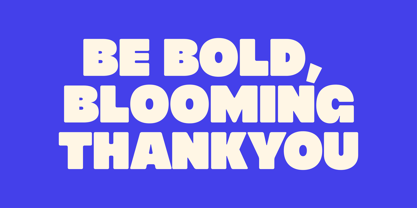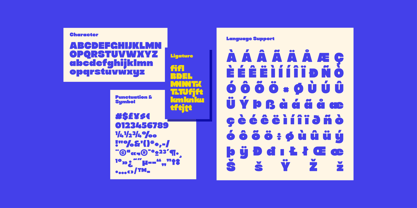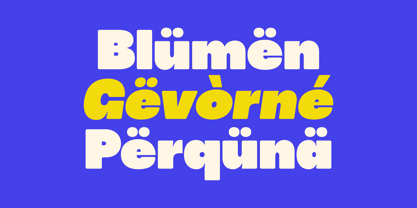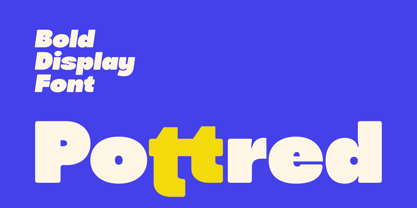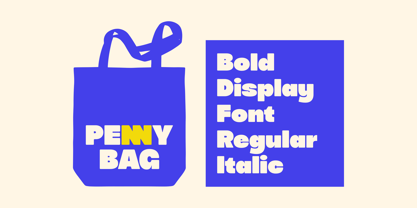
Pottred
by Glyphminds Studios
The Pottred Font Family was designed by Baliya Ibnu Bi Malkan and published by Glyphminds Studios. Pottred contains 2 styles and family package options. More about this family
Meet Pottred, a bold and playful display font crafted to bring energy and personality to your designs. With its rounded shapes, strong curves, and modern retro vibe, Pottred is perfect for eye-catching headlines, logo designs, posters, branding projects, and packaging. Whether you’re a designer looking for a statement typeface or a brand seeking a fun, friendly identity—Pottred delivers clarity and charm in every letter.
Designers: Baliya Ibnu Bi Malkan
Foundry: Glyphminds Studios